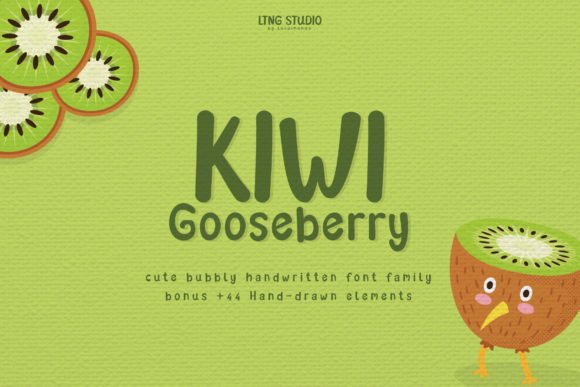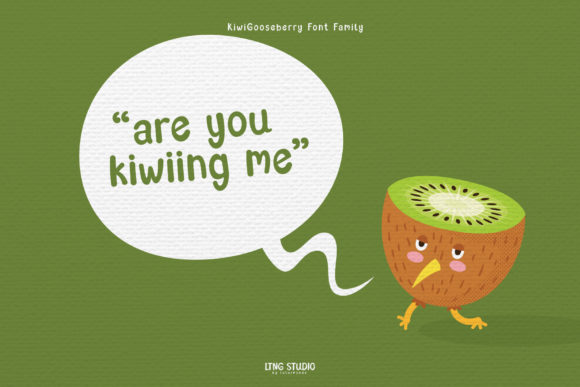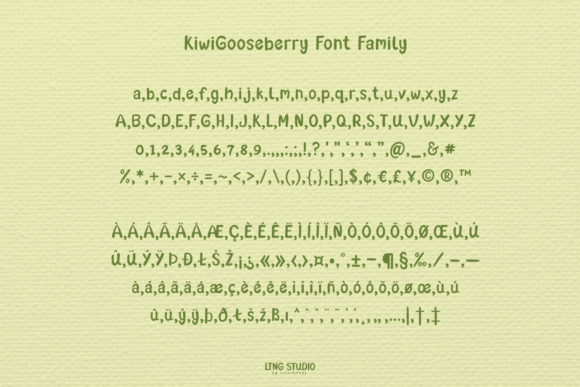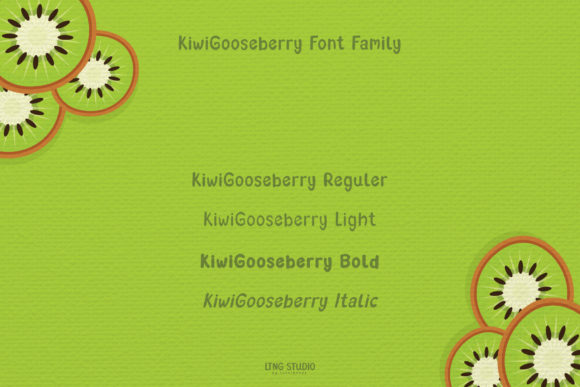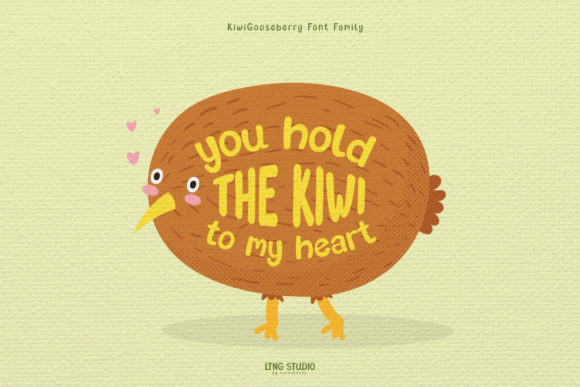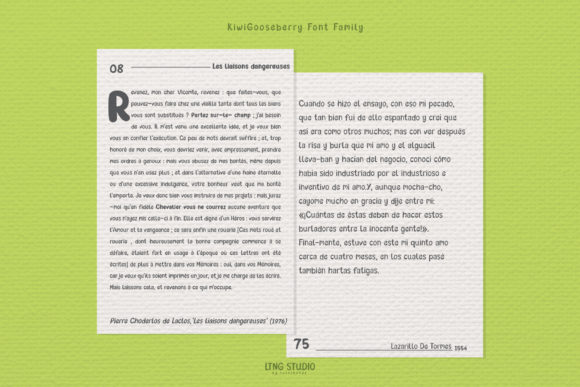
When Handwriting Meets Design
There’s something special about capturing the essence of a handwritten note in a digital format. Remember when you first discovered a font that perfectly replicated the feel of a loved one’s handwriting? The way it made your digital creations feel more personal and intimate? For designers, finding the right font can be a game-changer, elevating a project from good to great.
Enter the Kiwi Gooseberry Font, a charming and casual handwritten font that brings a relaxed touch to any design. Its informal style and carefree vibe make it the perfect choice for projects that require a laid-back feel. Whether you’re designing a social media campaign, a branding package, or a wedding invitation, the Kiwi Gooseberry Font is sure to bring a smile to your audience’s faces.
Kiwi Gooseberry Font Key Features
- Font Family: Kiwi Gooseberry is a sans-serif font family designed to evoke a sense of modernity and playfulness.
- Character Set: Supports a wide range of languages, including Latin, Cyrillic, and Greek alphabets, making it a versatile choice for global projects.
- Unique Characteristics: Distinctive rounded edges and subtle geometric shapes give Kiwi Gooseberry its signature look, making it perfect for modern branding and design projects.
Designer Review: Kiwi Gooseberry Font
Overall, I’d say the Kiwi Gooseberry Font has some great qualities, but it also has its limitations. Let’s dive in!
- Unique aesthetic: The font has a distinctive look that sets it apart from more traditional fonts. It’s perfect for those who want to add a bit of whimsy to their design.
- Good legibility: Despite its playful feel, the font is still easy to read, even at smaller sizes.
- Wide character set: The font includes a wide range of characters, including accents and symbols, making it suitable for a variety of languages and use cases.
- Lack of consistency: The font’s irregular shapes and varying line widths can make it difficult to use in situations where consistency is key.
- Not ideal for body text: While the font is great for headings and titles, it’s not the best choice for body text due to its busy, decorative feel.
- Not scalable: At very small sizes, the font can become difficult to read due to its complex shapes and thin lines.
Overall, I’d give the Kiwi Gooseberry Font 3.5 out of 5 stars. It’s a great choice for designers who want to add some personality to their work, but it’s not a one-size-fits-all solution. Use it for headings, titles, and other decorative elements, and you’ll be happy with the results. Just be aware of its limitations and use it judiciously.
For the most striking results, use the Kiwi Gooseberry Font in combination with bright and pastel colors. This font is ideal for creating eye-catching social media graphics, posters, and flyers. You can also use it for branding and logo designs, as well as for creating a unique and playful tone in your written content.